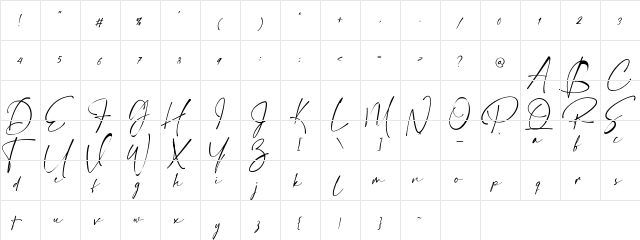
Hamiltone Demo Regular Font Preview
Hamiltone Demo Regular
| Designer | lemonthe-Dwi Ahidian |
Design Context for Hamiltone Demo Typeface
Hamiltone Demo is a composed and adaptable typeface that performs quietly and consistently across a wide range of design contexts.